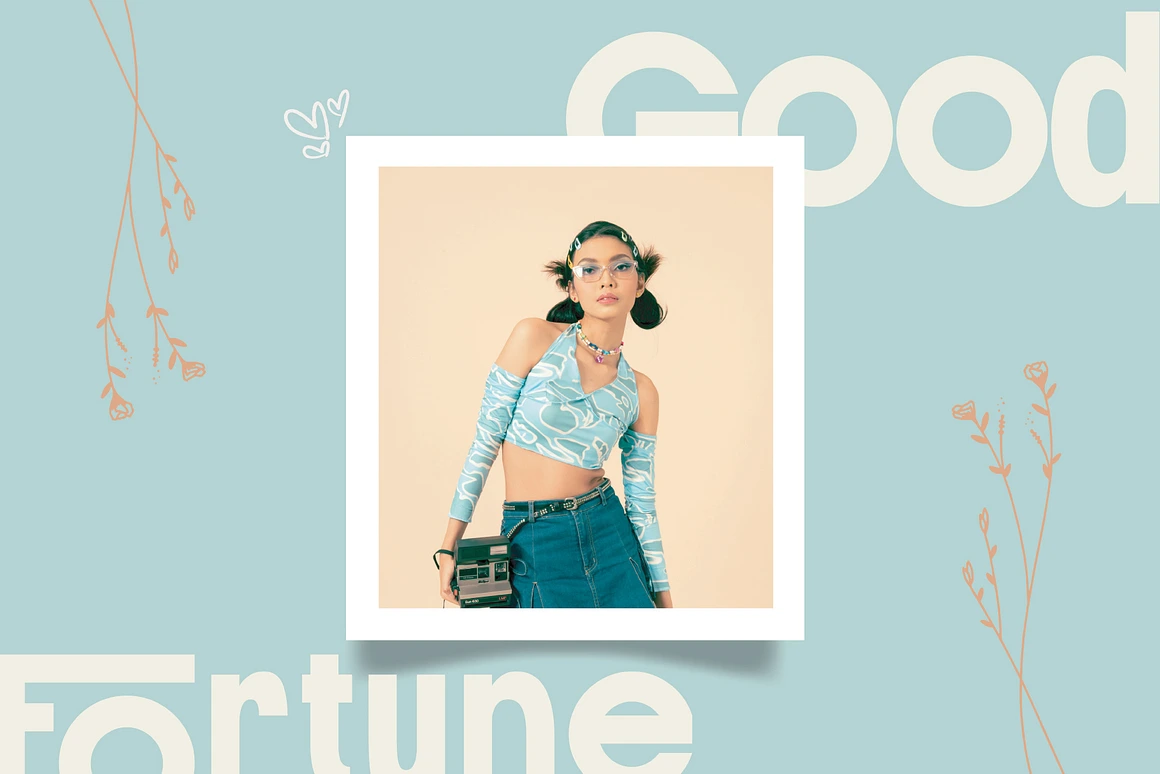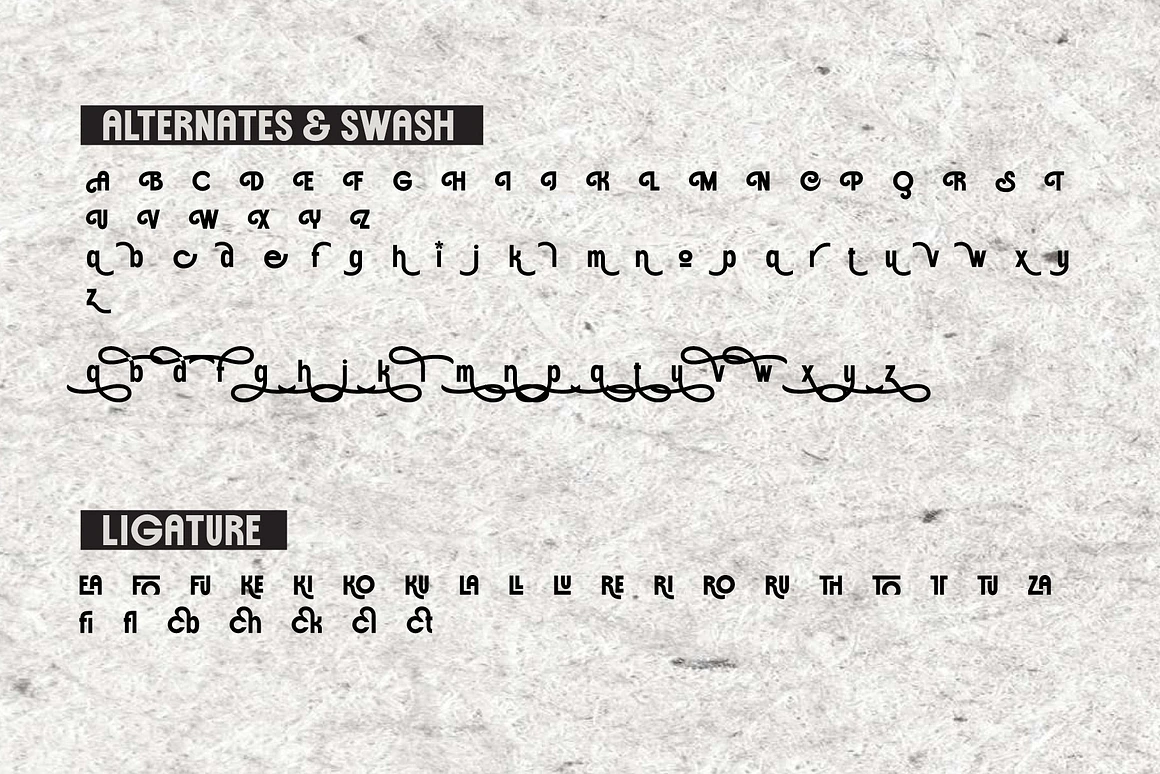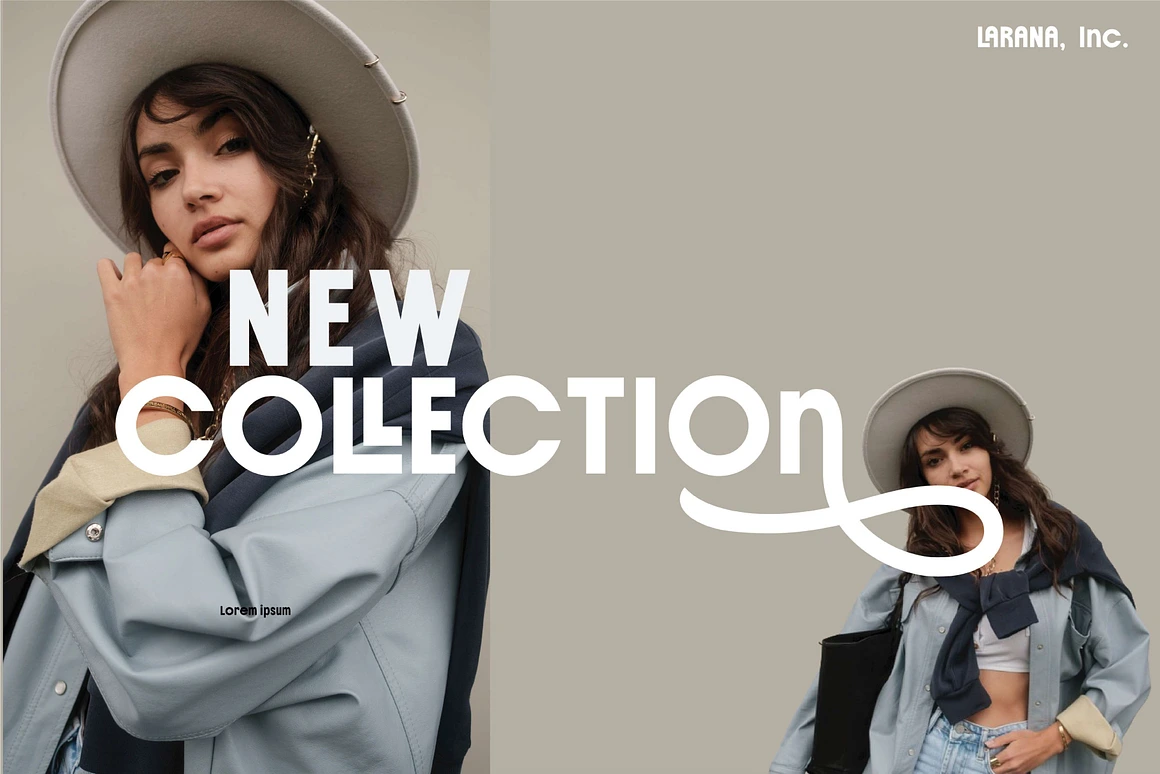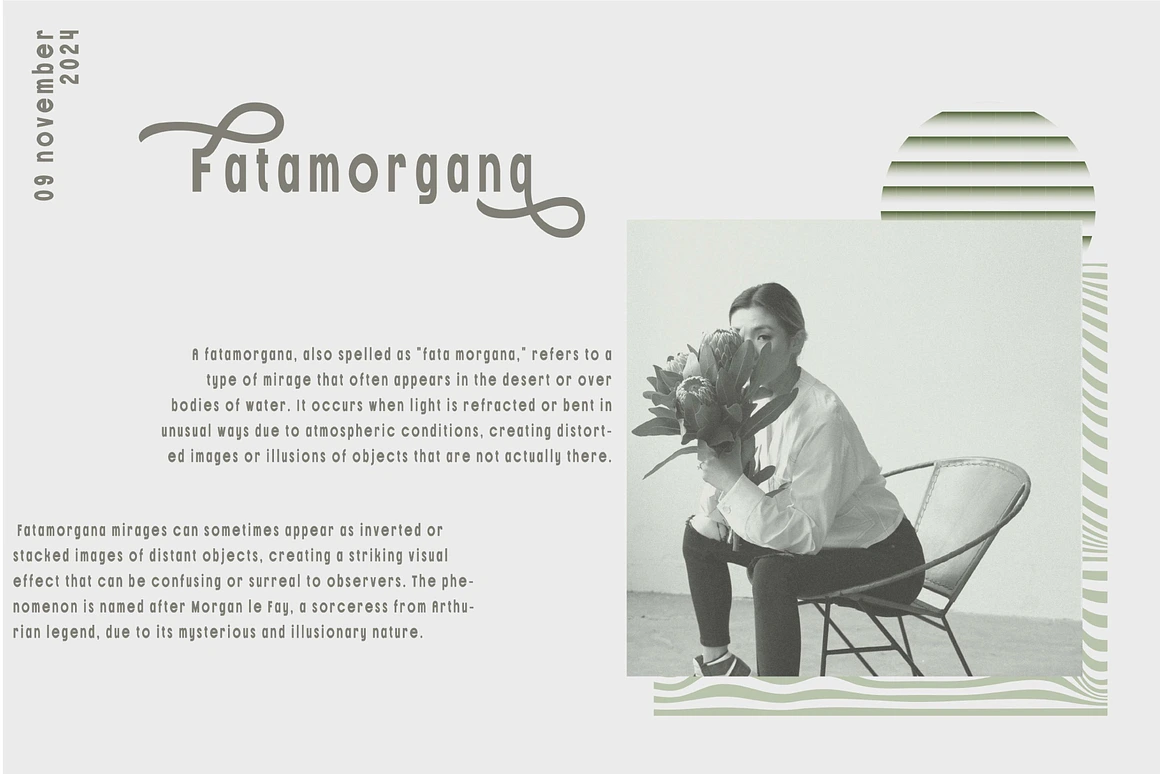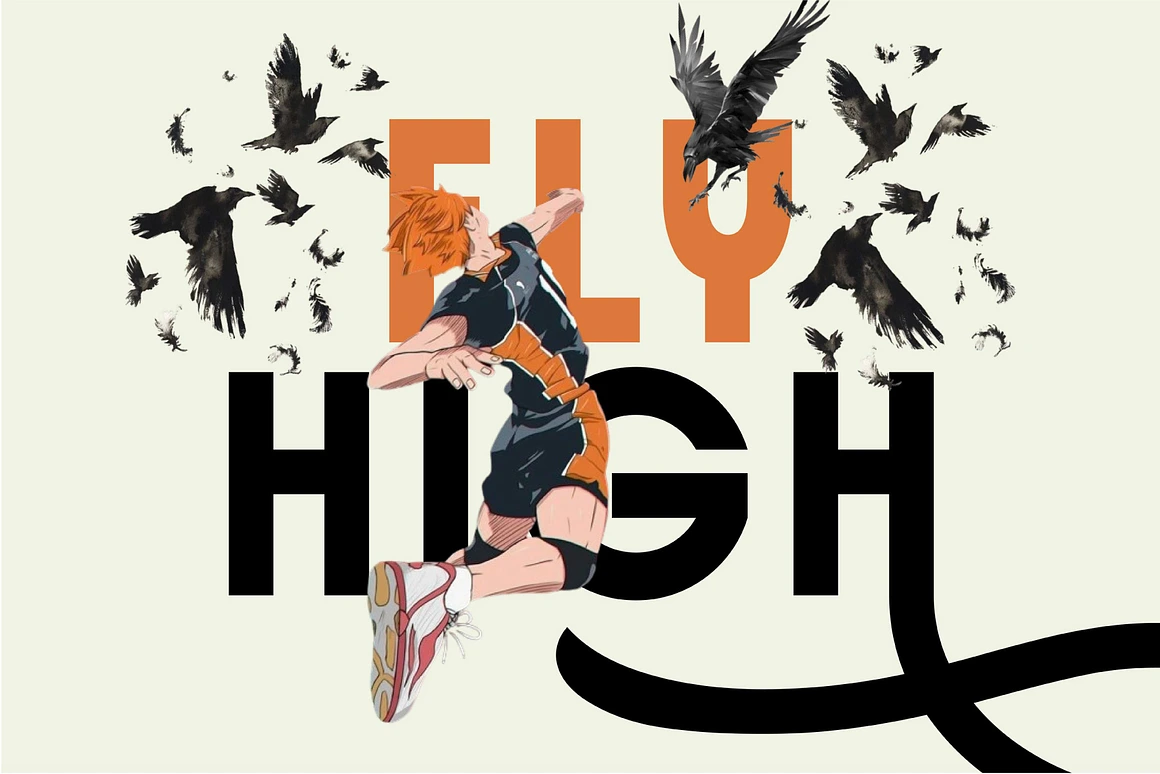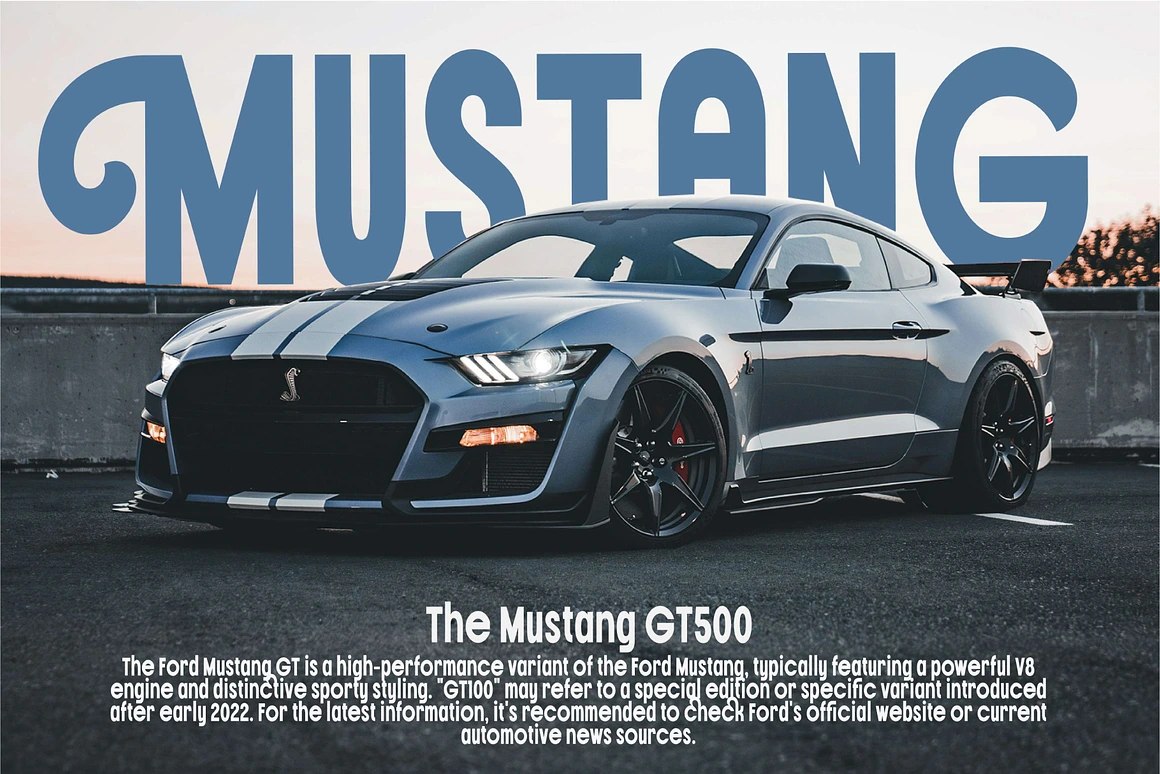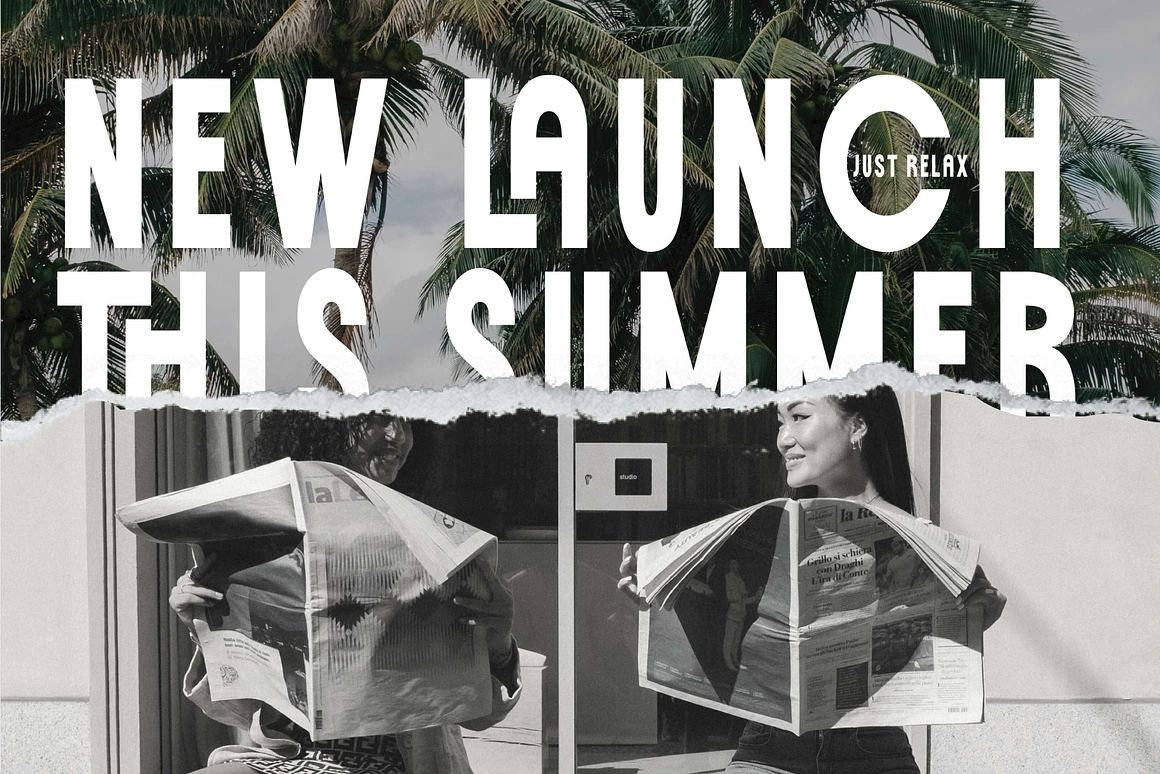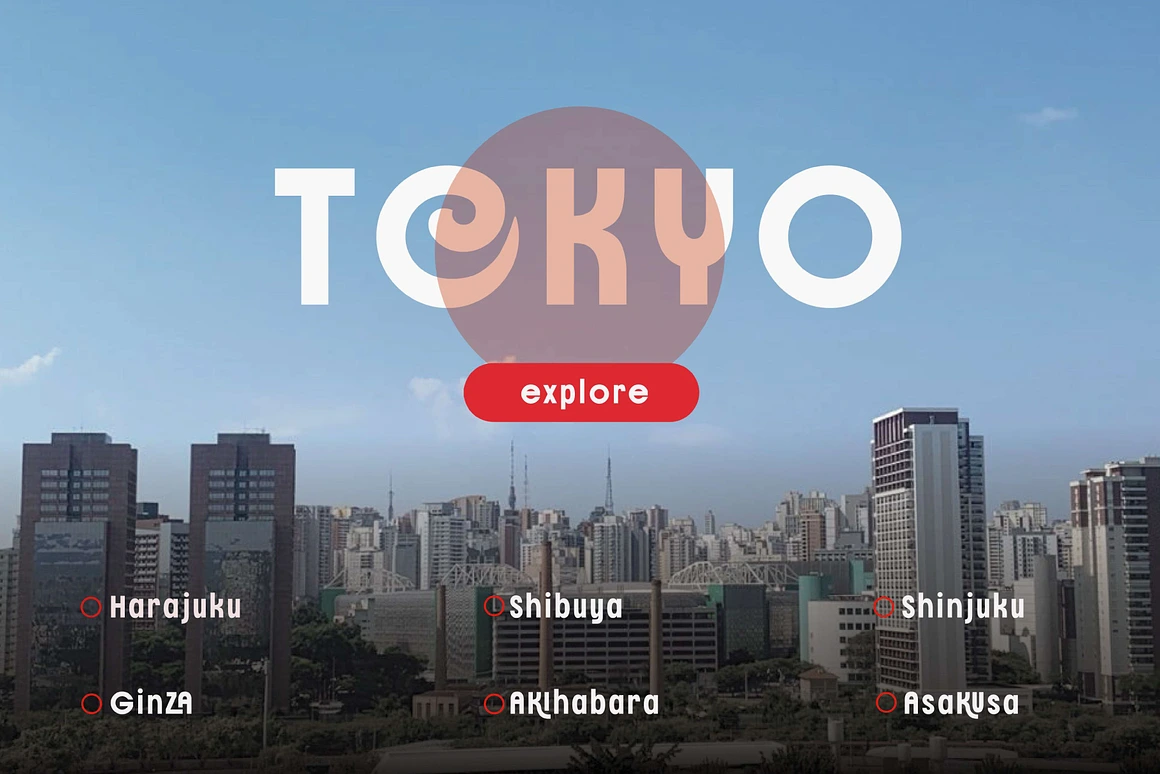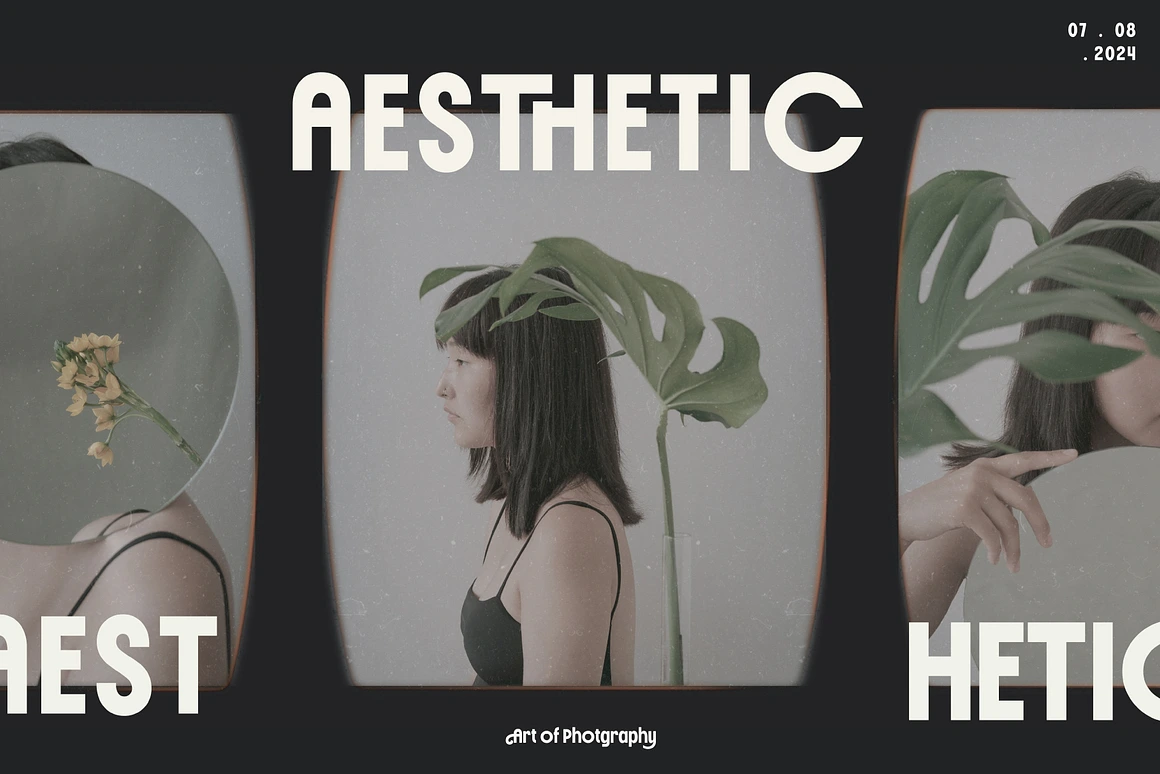
Cirodela Bold and Elegant Font
Introducing Cirodela Bold and Elegant Font, a font that seamlessly combines boldness with elegance to elevate your design projects. Crafted with precision, Cirodela offers a unique blend of strong, impactful lines and graceful curves, making it the perfect choice for both modern and classic aesthetics.
Key Features:
– Bold Elegance: Striking yet sophisticated, Cirodela bold and elegant font stands out while maintaining a refined appearance.
– Cirodela bold and elegant font Versatility: Ideal for logos, headlines, invitations, posters, and more, adapts to various design needs effortlessly.
– Cirodela bold and elegant font High Legibility: Designed for readability, ensures your text is clear and impactful across all mediums.
– Multilingual Support: Extensive character set with support for multiple languages, making it a versatile choice for global projects.
– OpenType Features: Includes ligatures, alternates, and stylistic sets to provide creative flexibility and customization options. Transform your designs with the bold and elegant charm of Cirodela bold and elegant font. Whether you’re aiming for a modern minimalist look or a touch of timeless sophistication, Cirodela delivers exceptional results. Make a statement with every letter and captivate your audience with the undeniable allure of this stunning typeface.